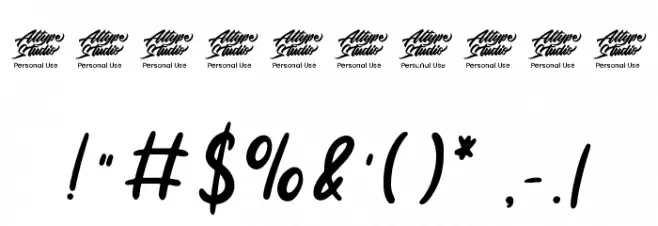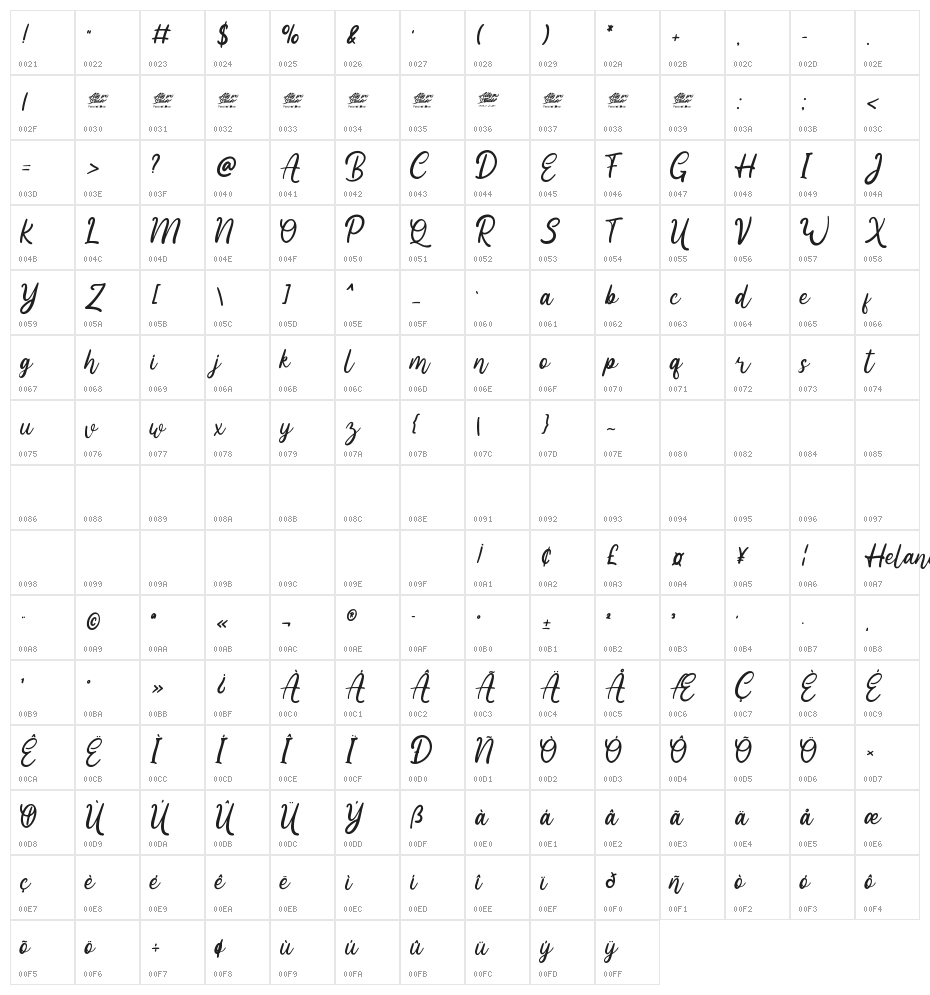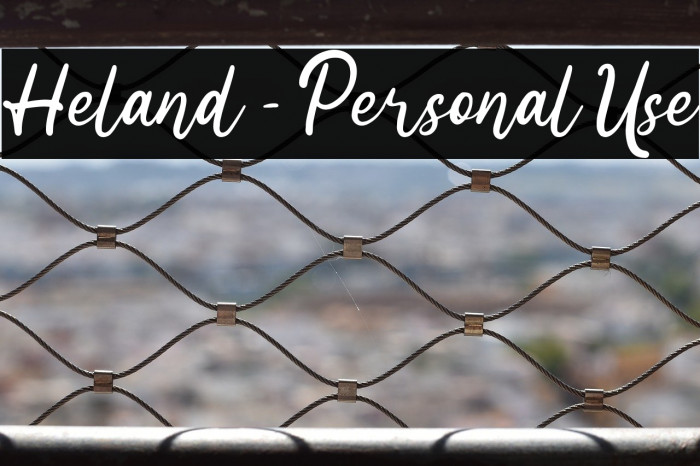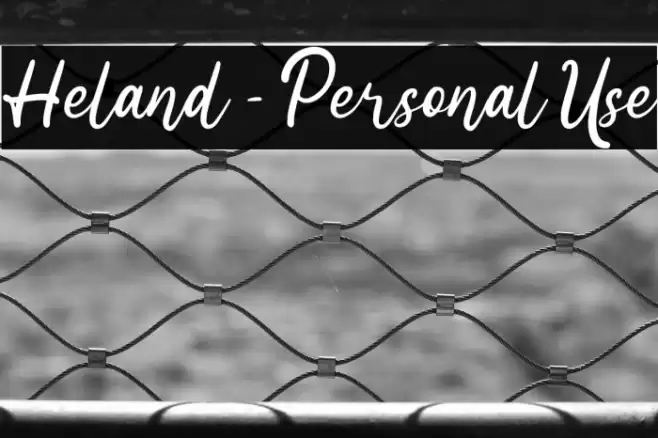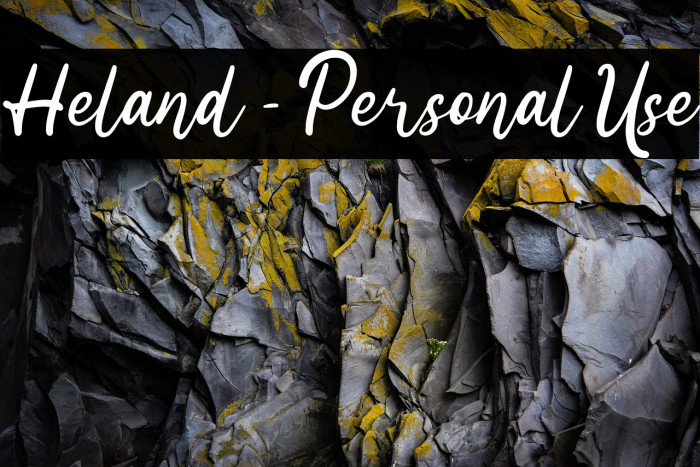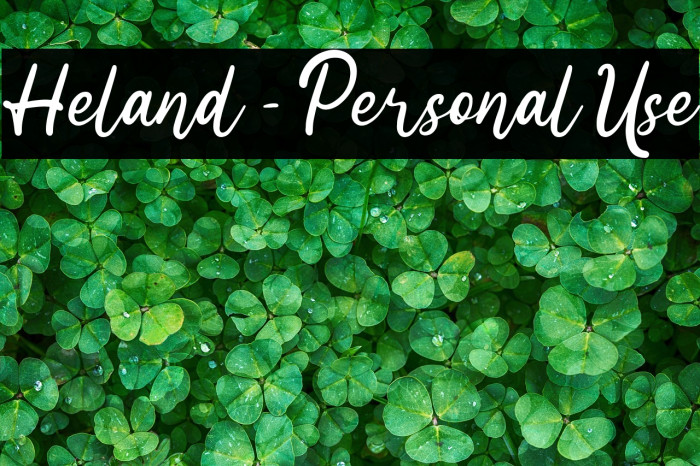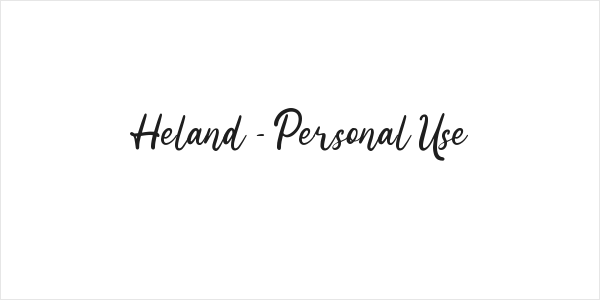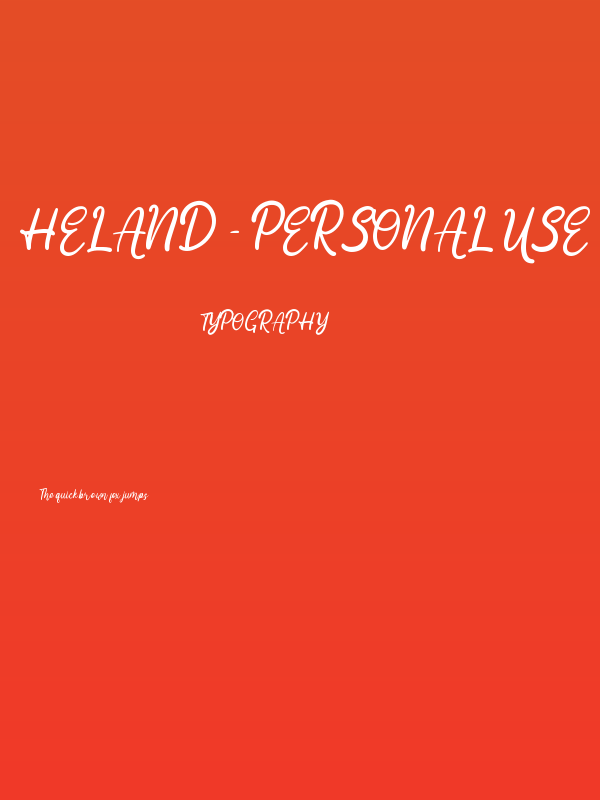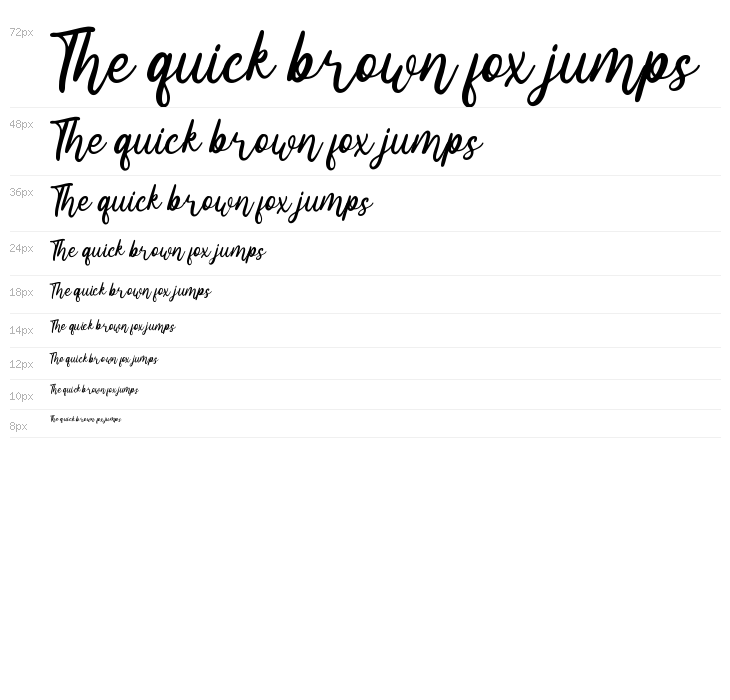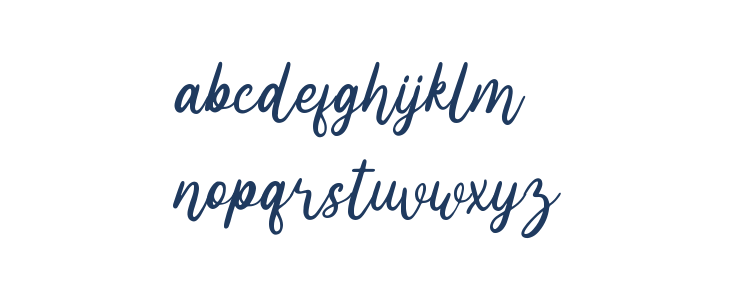
Heland - Personal Use Font
Heland - Personal Use Description
This font features a flowing, cursive style with elegant loops and smooth transitions between letters. The uppercase letters are tall and slightly slanted, giving a sense of movement and grace. The lowercase letters maintain a consistent style, with rounded edges and a harmonious flow. The numerals and special characters are designed to match the overall aesthetic, ensuring a cohesive look across all text. This font is ideal for projects that require a personal, handwritten touch, such as invitations, greeting cards, or branding materials. Its decorative nature makes it stand out, while still being legible and versatile.
| Proposed Projects | Ideal for invitations, greeting cards, branding, and personal projects. |